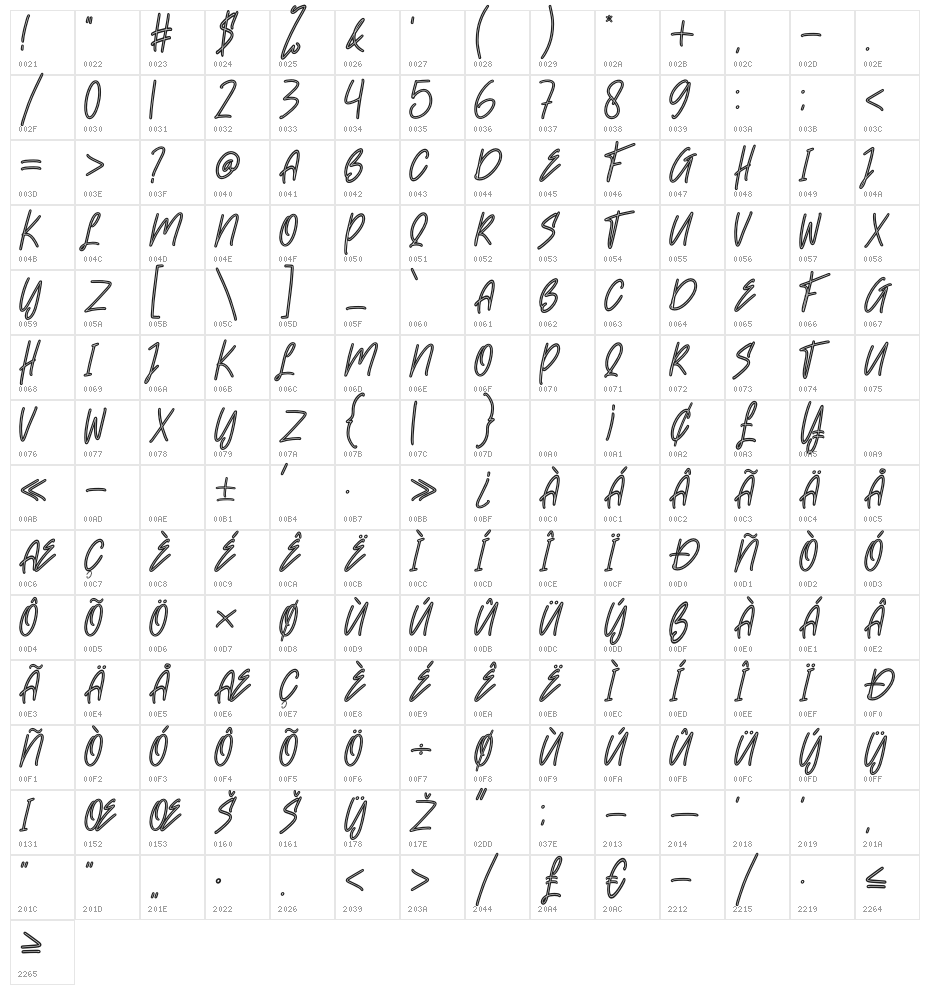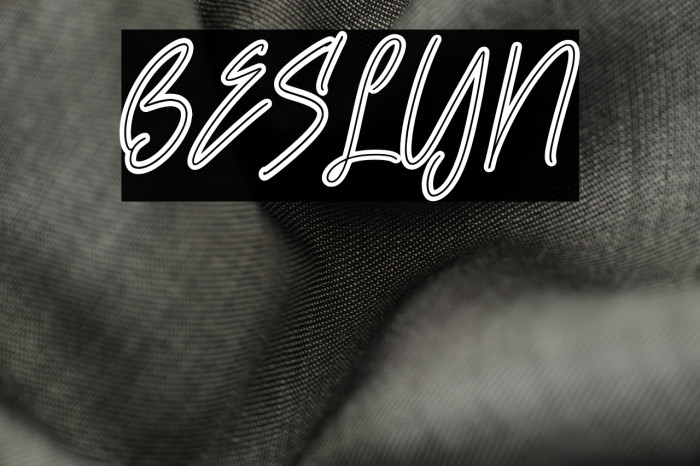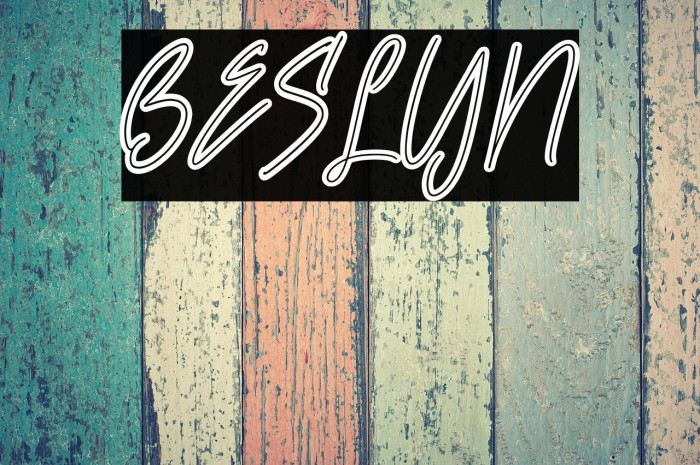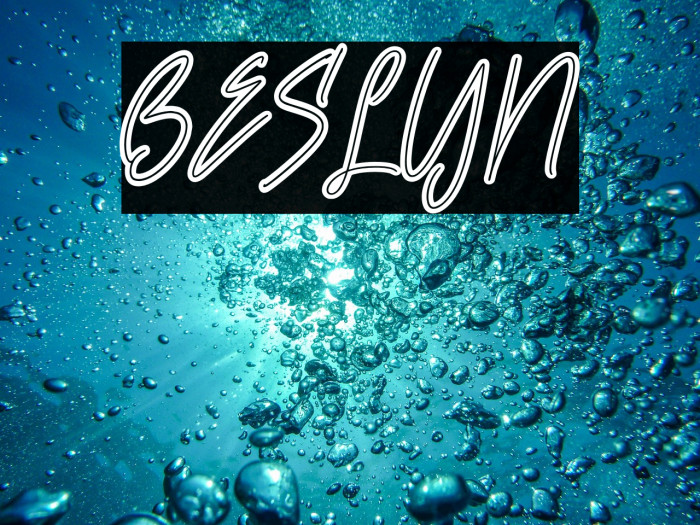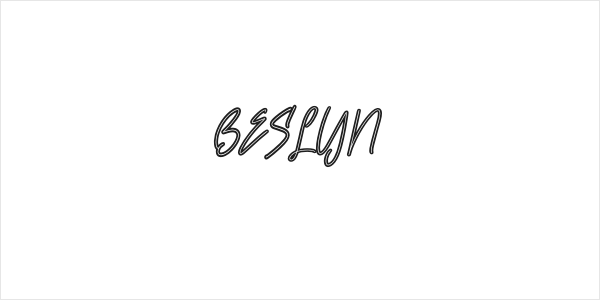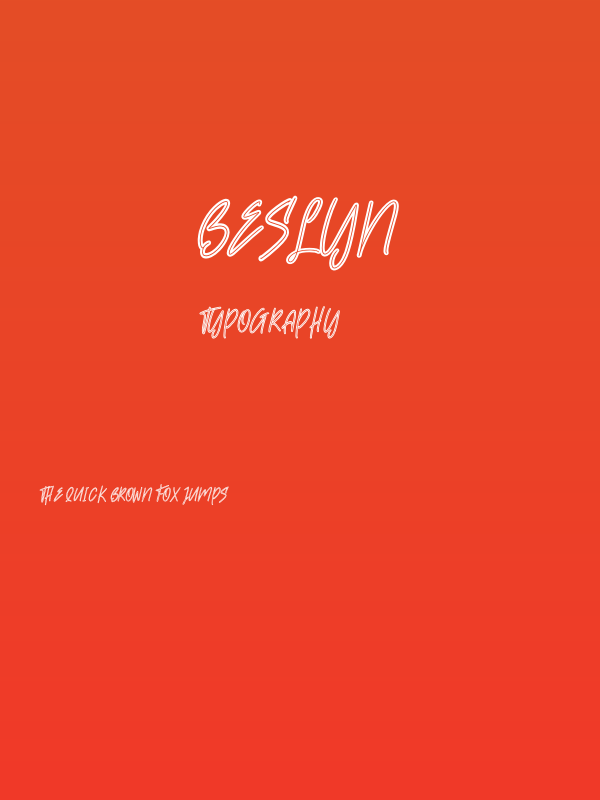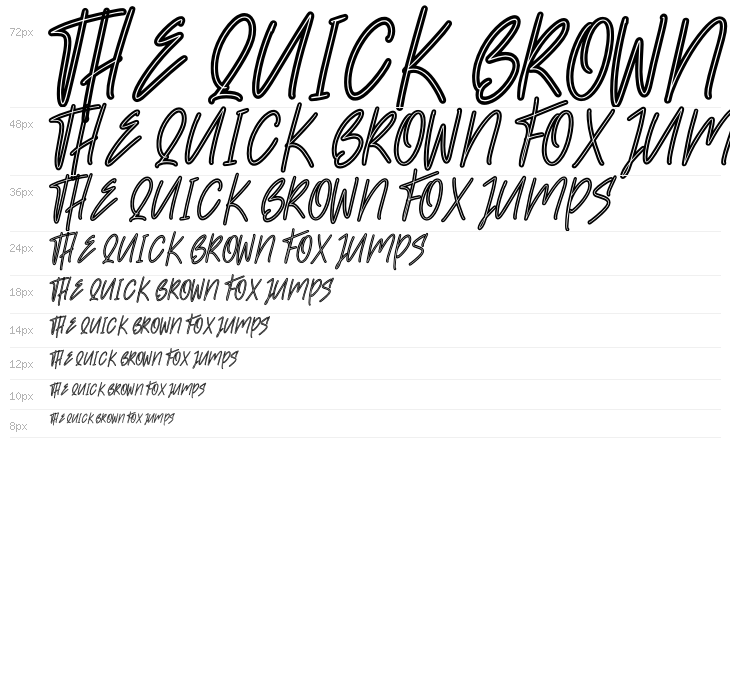
Beslyn Font
This font features a dynamic and energetic handwritten style, characterized by its fluid and continuous strokes. The letters are slightly slanted, giving a sense of motion and liveliness. The uppercase and lowercase characters maintain a consistent flow, with elongated ascenders and descenders that add to its casual yet stylish appearance. The numbers and special characters follow the same aesthetic, ensuring uniformity across all glyphs. This font's playful and informal nature makes it ideal for projects that require a personal touch.
| Overall Style | Casual |
| Use Case | Logos, Headlines, Creative projects |
| Proposed Projects | Ideal for greeting cards, personal branding, social media graphics, and creative invitations. |